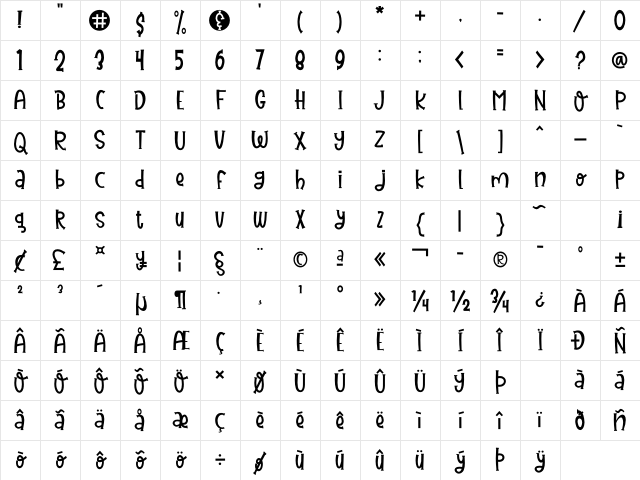
Complete Juice Blueberries Regular glyph index. Displaying only characters natively supported by Juice Blueberries Regular font.
Juice Blueberries is a composed and adaptable typeface that performs quietly and consistently across a wide range of design contexts.